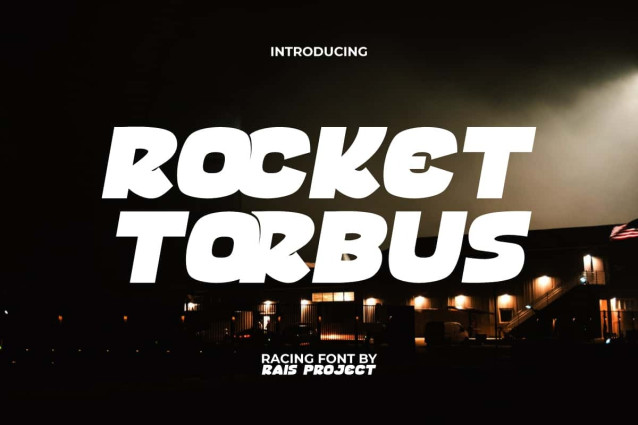
Rocket Torbus Font
Rocket Torbus Font is a fat bold racing font to make your designs standout by RaisProject. This font has a little cartoon touch so that the appearance is unique and fun but is suitable for sports themes. It will be great for custom design, poster, label, signage, stationery, product packaging, quotes, brand image, advertisement, invitation, marketing material, website page, and more!
Rocket Torbus Font includes a full set of ALL CAPS for Uppercase and Lowercase Letters, Numerals, large range of Punctuation, and Ligature character. This cool font will be suitable for various industries, such as sports, automotive, fashion, game, barber shop, cafe, event or festival, photography, printing, publishing, etc.